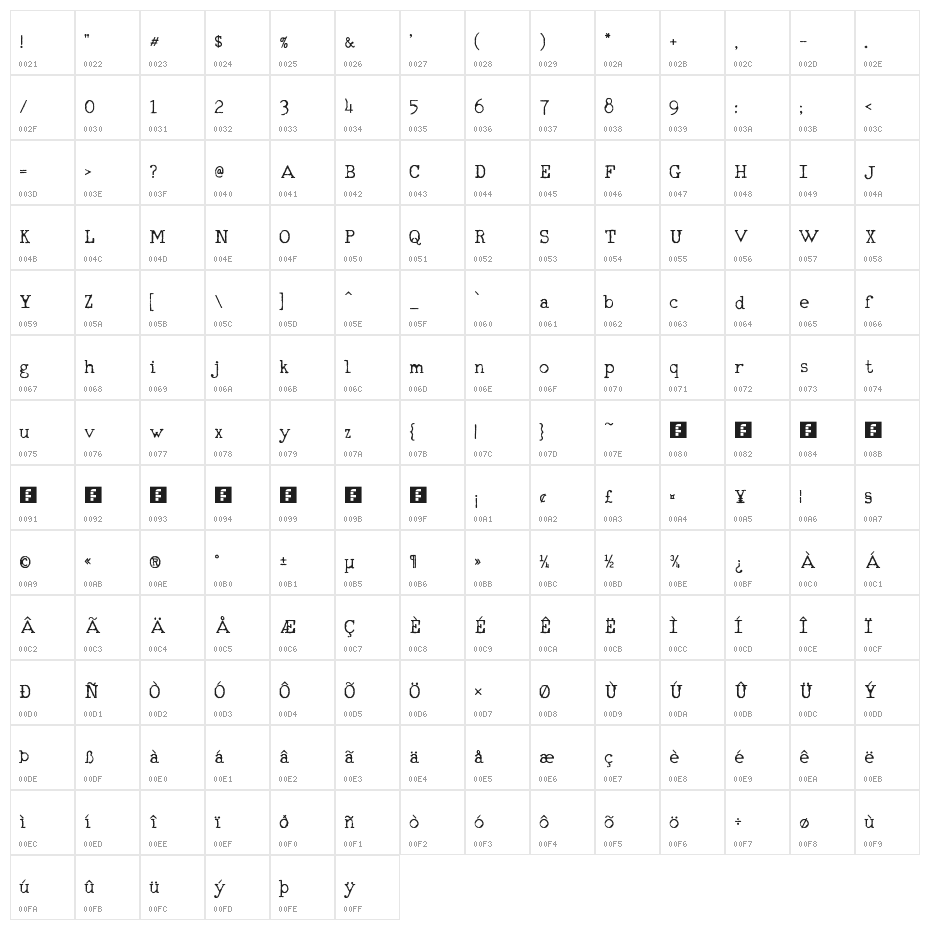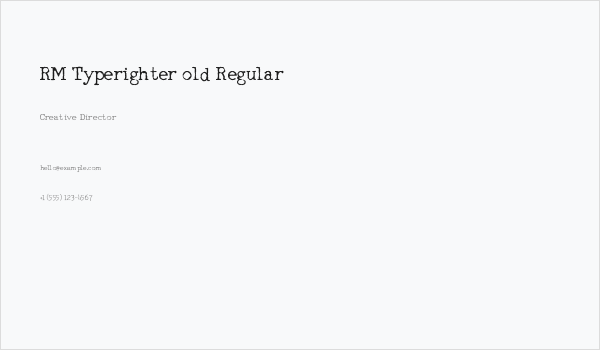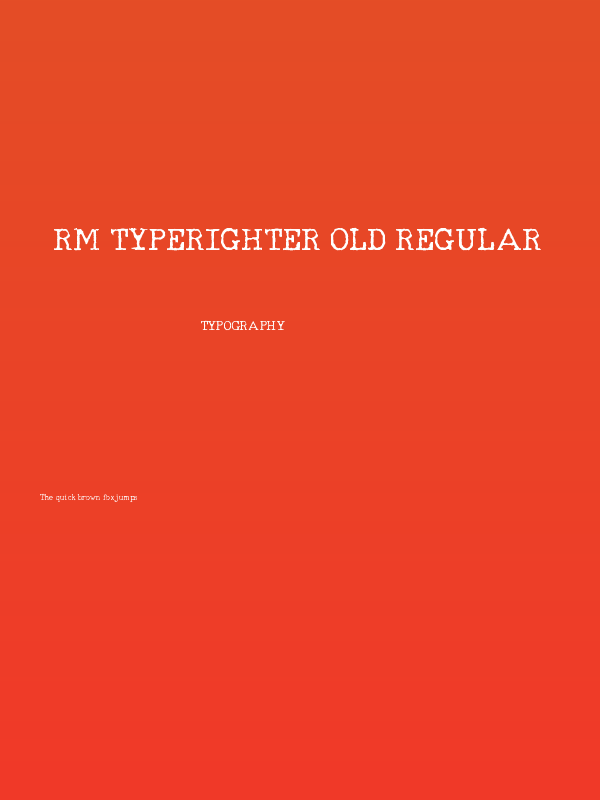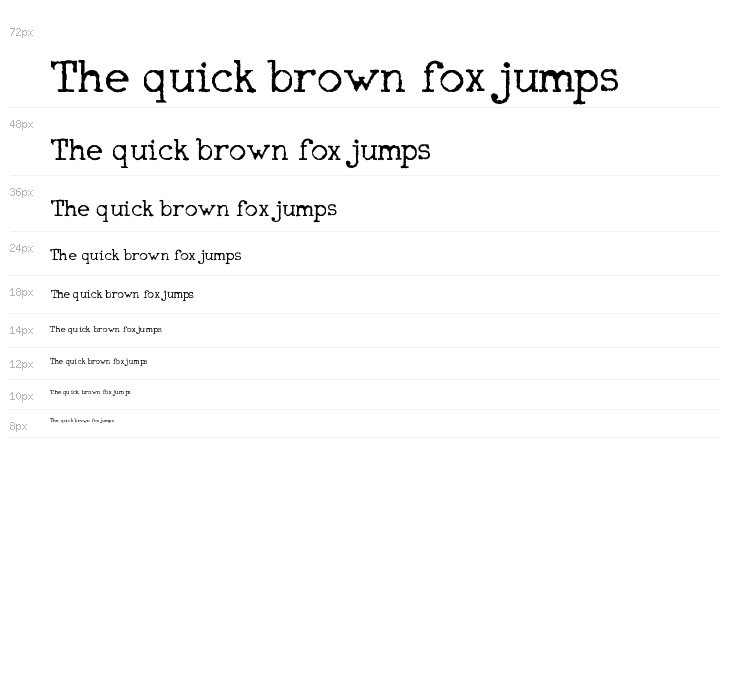
RM Typerighter old Regular Font
RM Typerighter old Regular Description
This typeface exudes a vintage charm reminiscent of old typewriter fonts. Each character is slightly irregular, giving it an authentic, mechanical feel. The strokes are uneven, with a textured appearance that suggests a history of use. The uppercase letters are bold and commanding, while the lowercase letters maintain a consistent style, offering a balanced look. Numbers and special characters follow the same aesthetic, ensuring uniformity across all glyphs. This font is perfect for projects that require a nostalgic or retro touch, evoking memories of classic typewritten documents.
| Use Case | Headlines, Logos, Decorative text |
| Proposed Projects | Ideal for retro-themed designs, vintage posters, typewriter-style documents, and creative projects seeking an old-fashioned touch. |